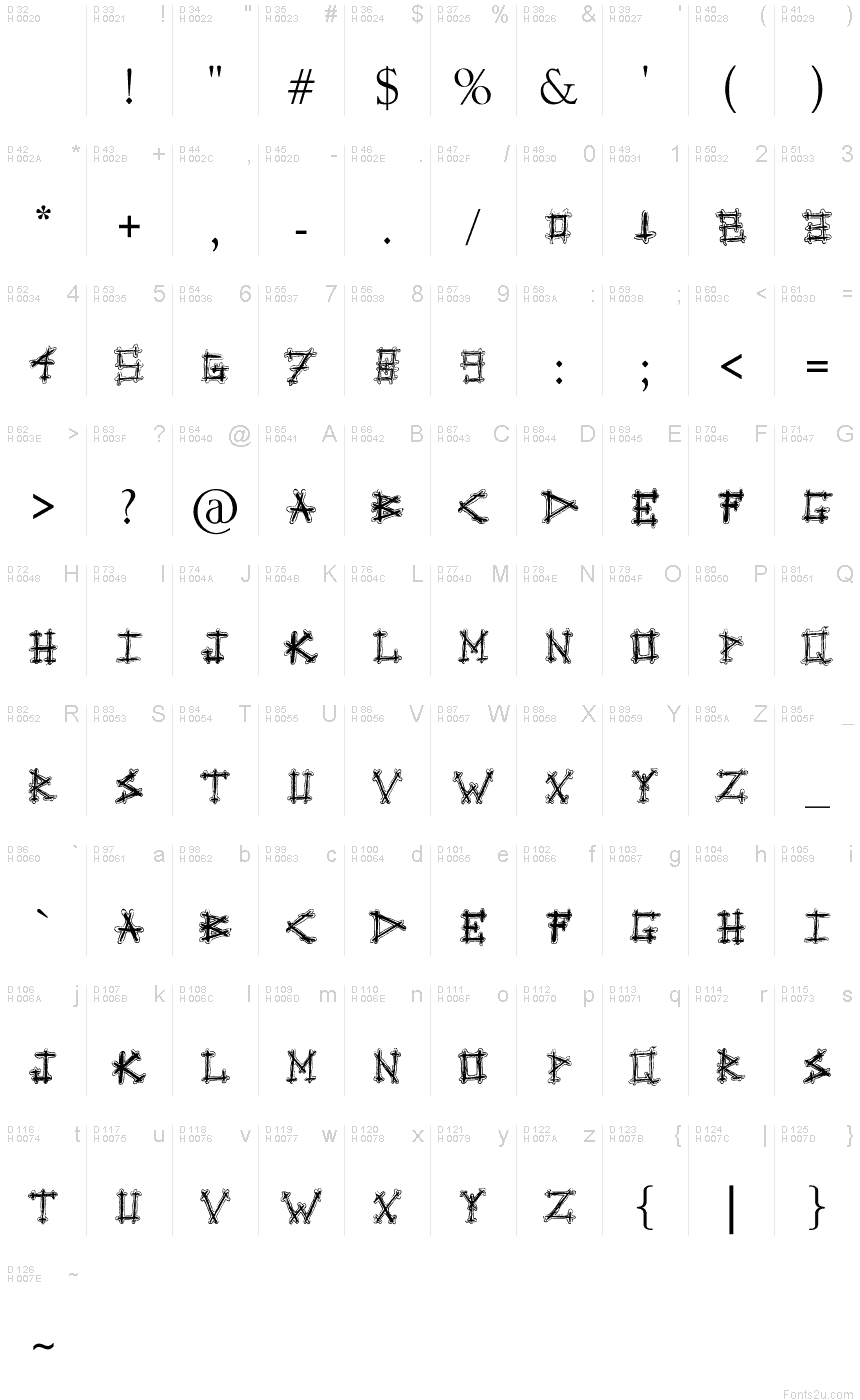
Spoonge Punk by Pastaza Type is a free scary decorative display font with skeletal letters. Its uneven outlines and crossing strokes look scratched together from splintered sticks, with sharp tips and abrupt bends adding a rough punk edge.
It is strongest on horror posters, where the broken framework can become part of the main graphic rather than ordinary title lettering. The same abrasive look suits punk merchandise and music packaging, especially when the artwork uses scratches, bones, or distressed illustration. For Halloween event graphics and game artwork, the pointed shapes supply an immediate handmade sense of menace.